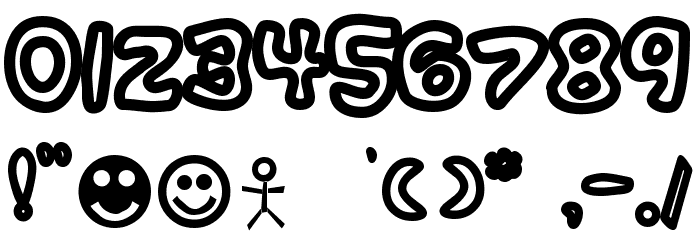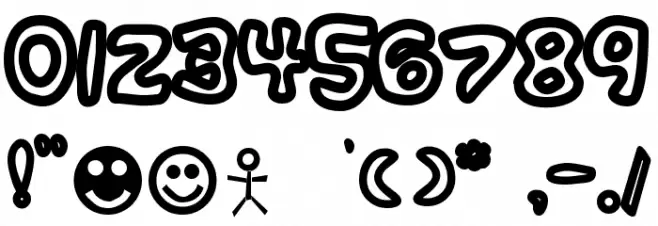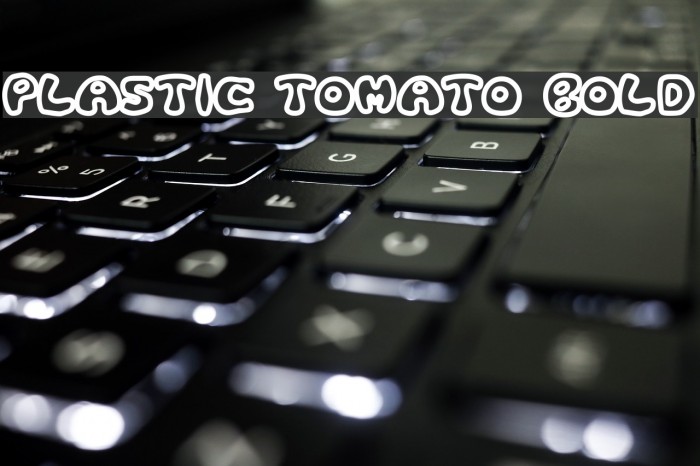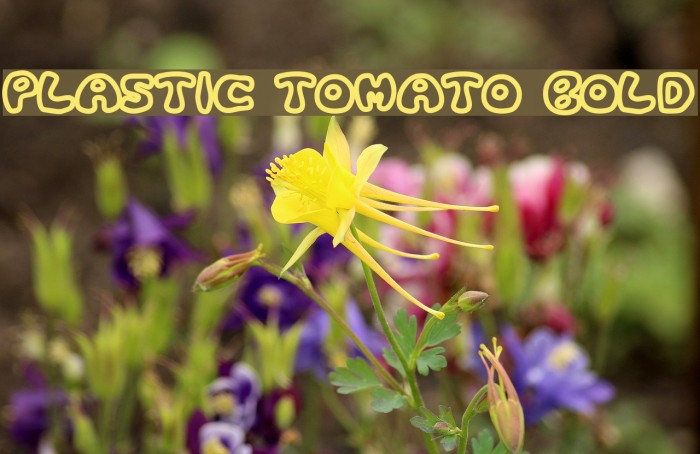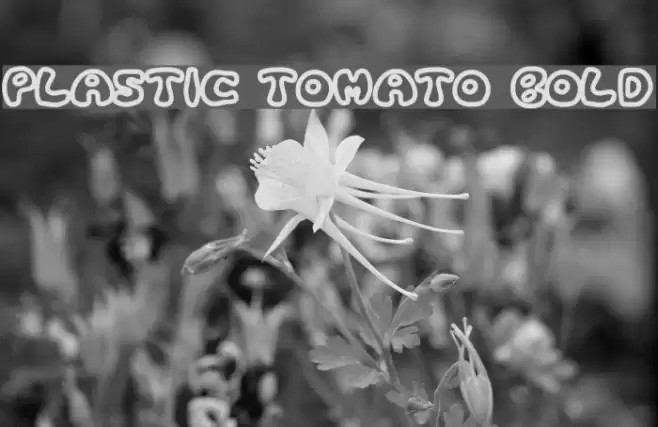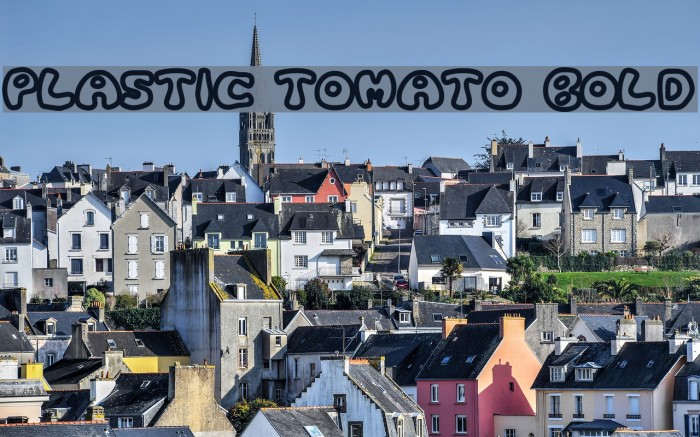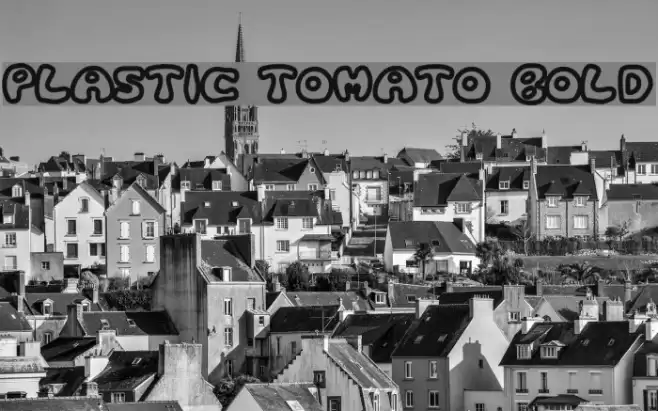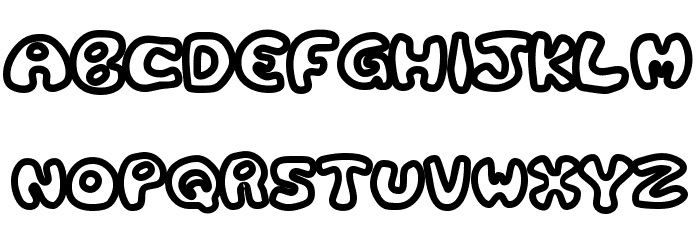
Plastic Tomato Bold Font
| 全体的なスタイル | Playful, Modern, Cartoonish |
| おすすめプロジェクト | Ideal for children's books, comic strips, playful branding, party invitations, and eye-catching posters. |